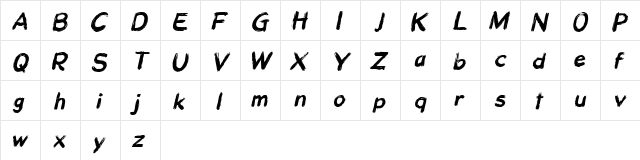
Wild Black Italic Wild Black Italic
| Foundry | Fenny Wiryani |
| Designer | Fenny Wiryani |
Design Context for Wild Black Italic Typeface
Wild Black Italic is a composed and adaptable typeface that performs quietly and consistently across a wide range of design contexts. The slanted form adds forward momentum and visual energy.
Pro Tip: Use Wild Black Italic for emphasis, pull quotes, and subheadings where its slanted energy can add rhythm to the layout.